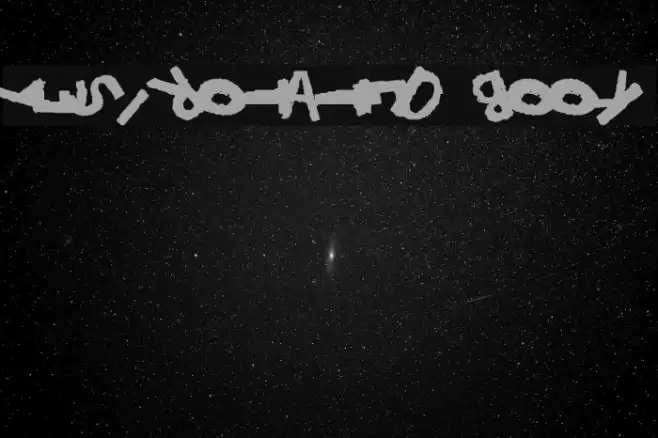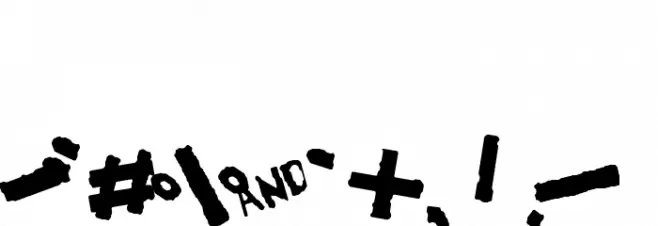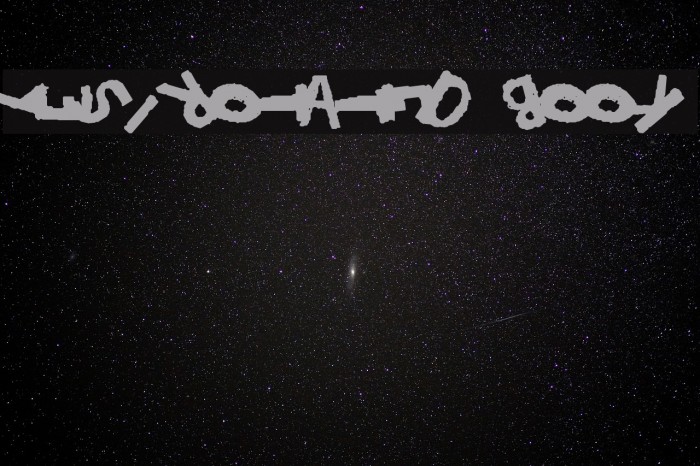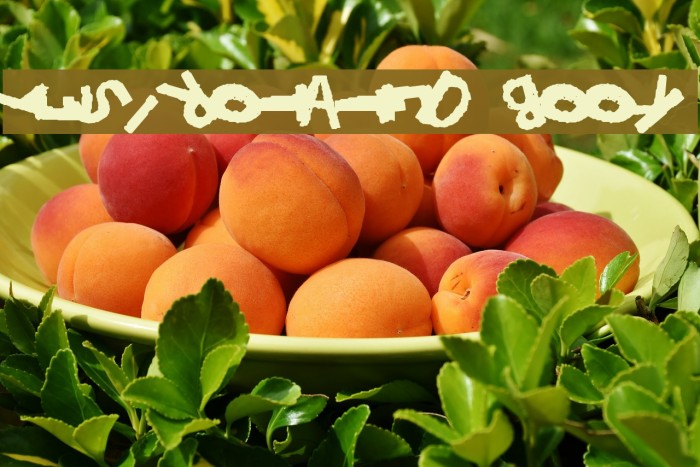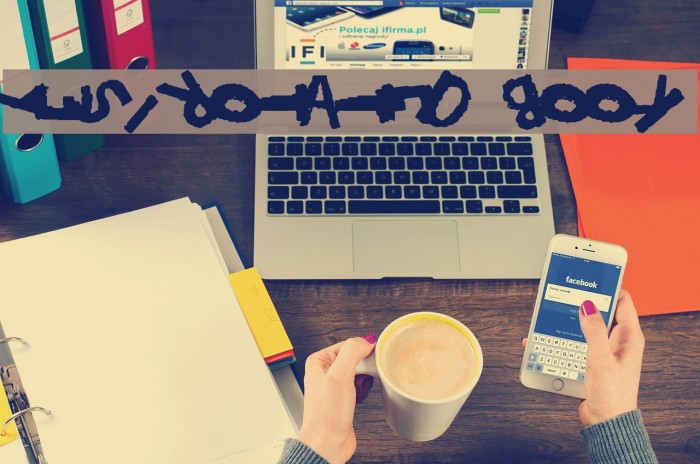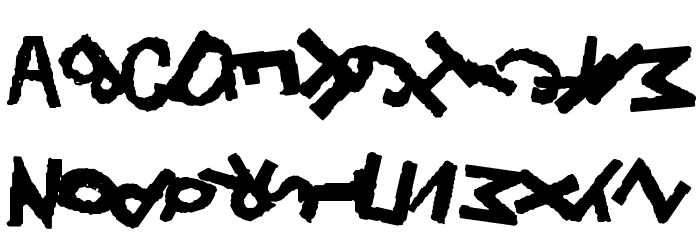
YES_rotated Book Font
YES_rotated Book Description
This font features a highly stylized and abstract design, with characters that appear to be rotated or twisted, creating a chaotic and dynamic visual effect. The strokes are thick and bold, with an irregular pattern that gives each letter a unique appearance. The overall look is reminiscent of graffiti or street art, with a rebellious and unconventional style. The characters are tightly spaced, adding to the sense of movement and energy. This font is not suitable for body text due to its complexity and lack of readability, but it makes a strong visual impact for artistic or decorative purposes.
A bold, abstract font with a graffiti-like, chaotic style from Uncategorized fonts.
- Proposed Projects: Ideal for street art-inspired designs, album covers, posters, or any project needing a bold, artistic statement.
- Character Spacing: Tight
- Use Case: Logos, Posters, Artistic projects